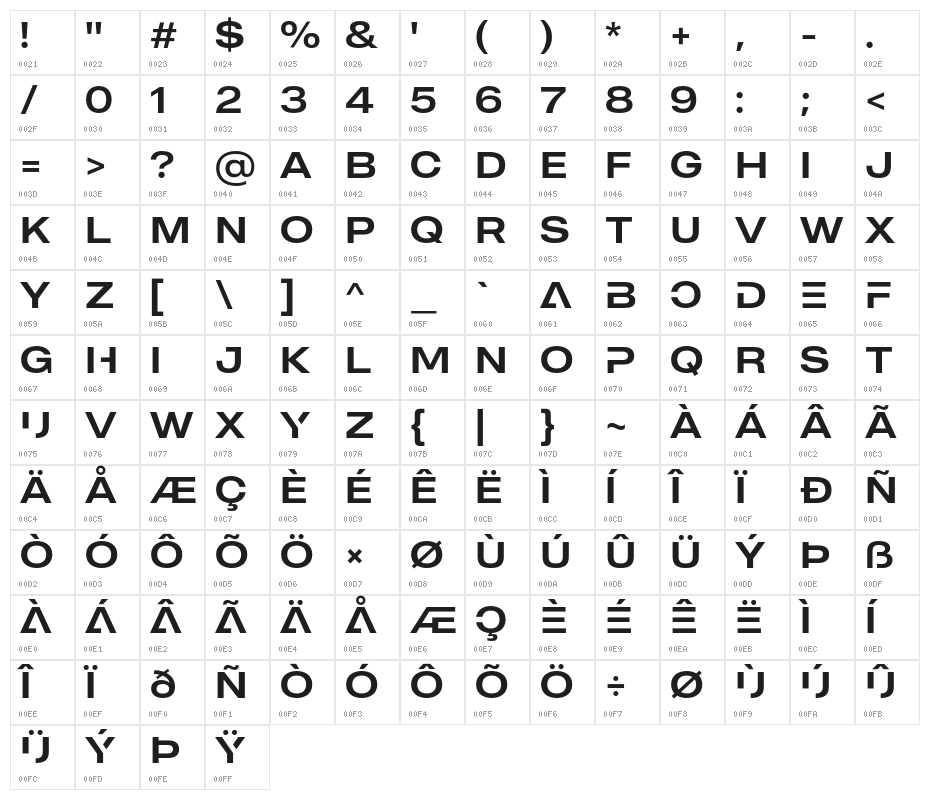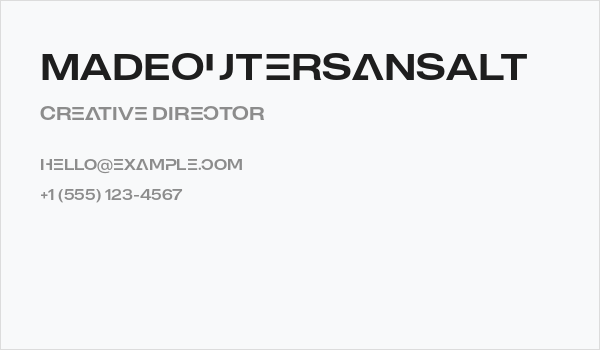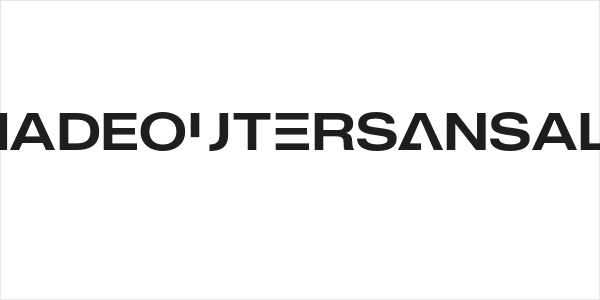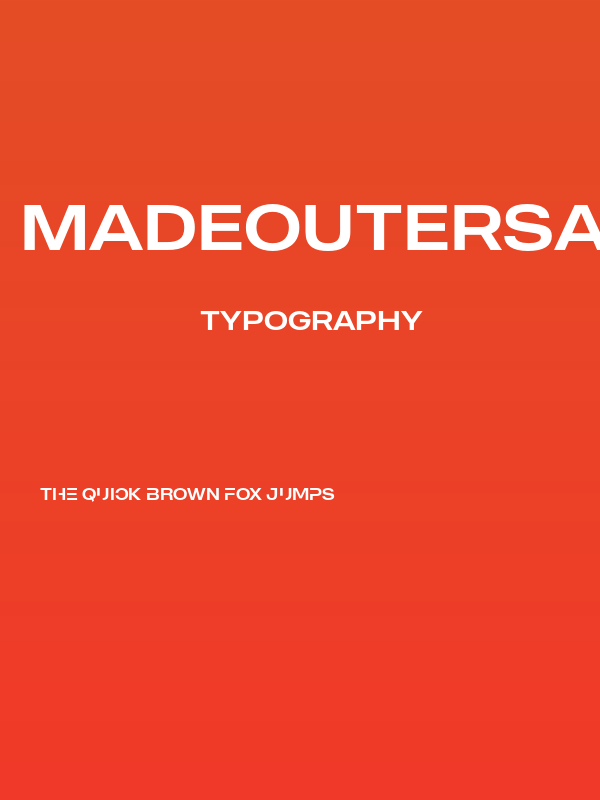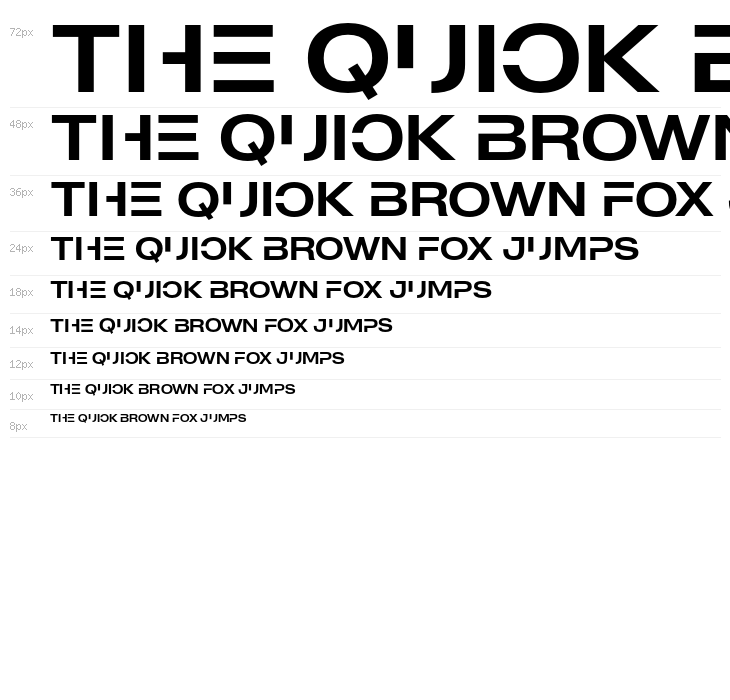
MADEOuterSansAlt Font
MADEOuterSansAlt Description
This font features a bold and modern sans-serif style with clean, geometric lines. The uppercase letters are uniform and balanced, providing a strong visual impact. The lowercase letters maintain the same boldness, ensuring consistency throughout the text. Numbers are clear and easy to read, making them suitable for various applications. Special characters are well-defined, enhancing the font's versatility. The overall design is sleek and contemporary, ideal for projects that require a modern aesthetic.
| Proposed Projects | Ideal for branding, advertising, headlines, and digital content where a modern and bold appearance is desired. |